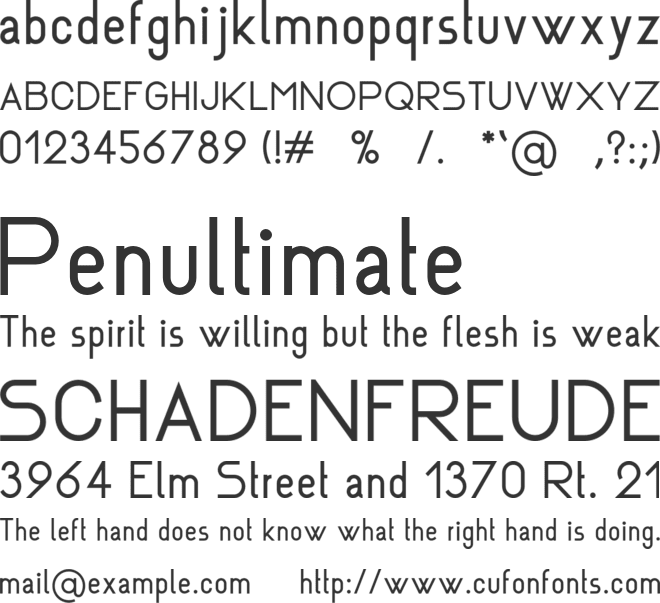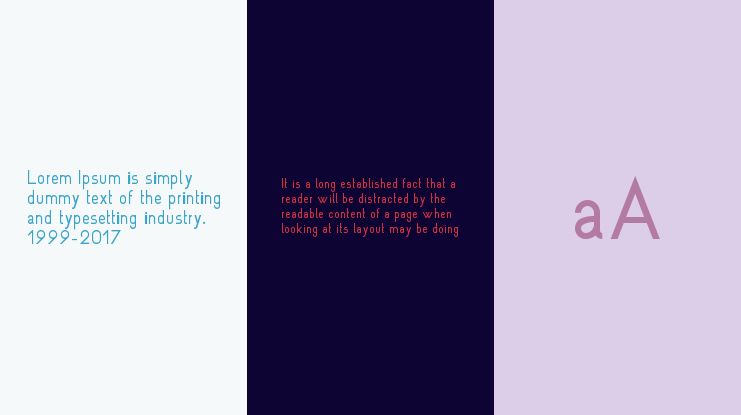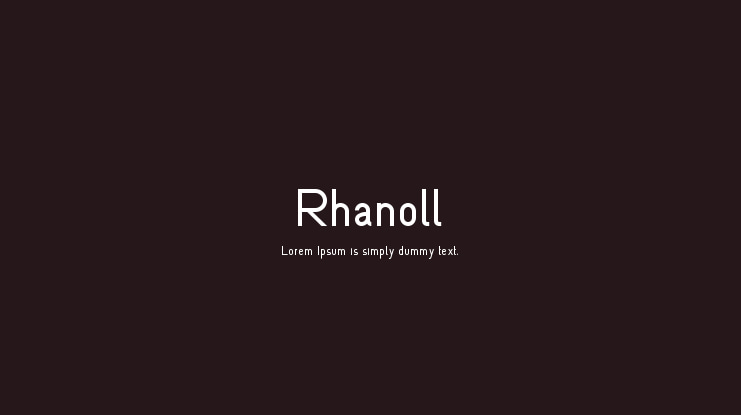
Rhanoll Font
Rhanoll is a sans-serif modern font, designed for an illustration, it contains 114 glyphes. Free to use for personal or commercial work, I hope that you'll enjoy it. If you share this font on your website, please notice me by mail and don't forget to link the font to my behance. (  ) ( www.behance.net/rlg66 )